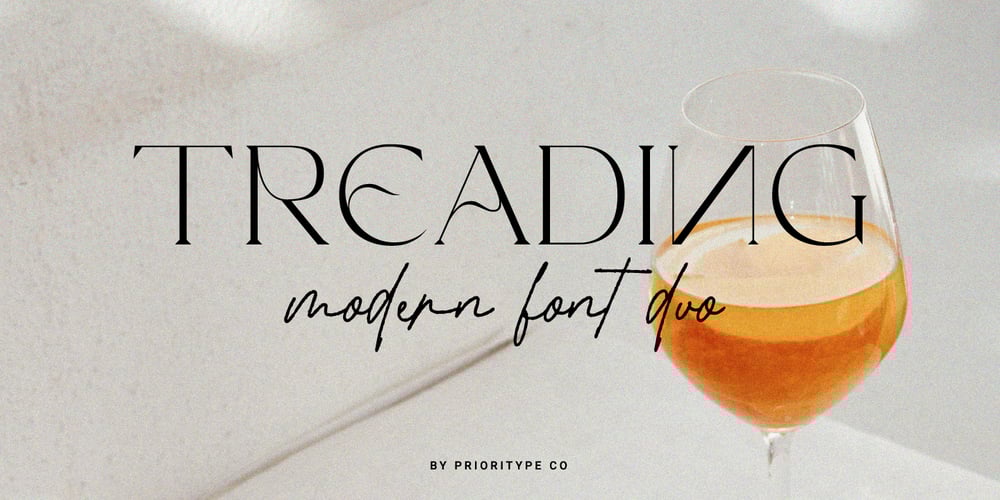
Treading Font Family was designed by Prio Nurokhim Aji and published by Prioritype. Treading contains 2 styles and family package options. Presents new paired fonts. A minimal and clean feel paired with a handwritten script font makes your designs even more special. This script font also features ligatures, alternatives, and swash or underscore characters that make it more realistic. Great for logo design, branding, quotes and more. Features: Serif: Uppercase, Lowercase, Numeral, Punctuation & Multilingual. Script: Uppercase, Lowercase, Numeral, Punctuation, Multilingual, Ligatures, Alternates & Swash. Multilingual contained: Afrikaans, Albanian, Asu, Basque, Bemba, Bena, Breton, Catalan, Chiga, Cornish, Danish, Dutch, English, Estonian, Filipino, Finnish, French, Friulian, Galician, German, Gusii, Indonesian, Irish, Italian, Kabuverdianu, Kalenjin, Kinyarwanda, Luo, Luxembourgish, Luyia, Machame, Makhuwa-Meetto, Makonde, Malagasy, Manx, Morisyen, North Ndebele, Norwegian Bokmål, Norwegian Nynorsk, Nyankole, Oromo, Portuguese, Quechua, Romansh, Rombo, Rundi, Rwa, Samburu, Sango, Sangu, Scottish Gaelic, Sena, Shambala, Shona, Soga, Somali, Spanish, Swahili, Swedish, Swiss German, Taita, Teso, Uzbek (Latin), Volapük, Vunjo, Zulu. Thanks!